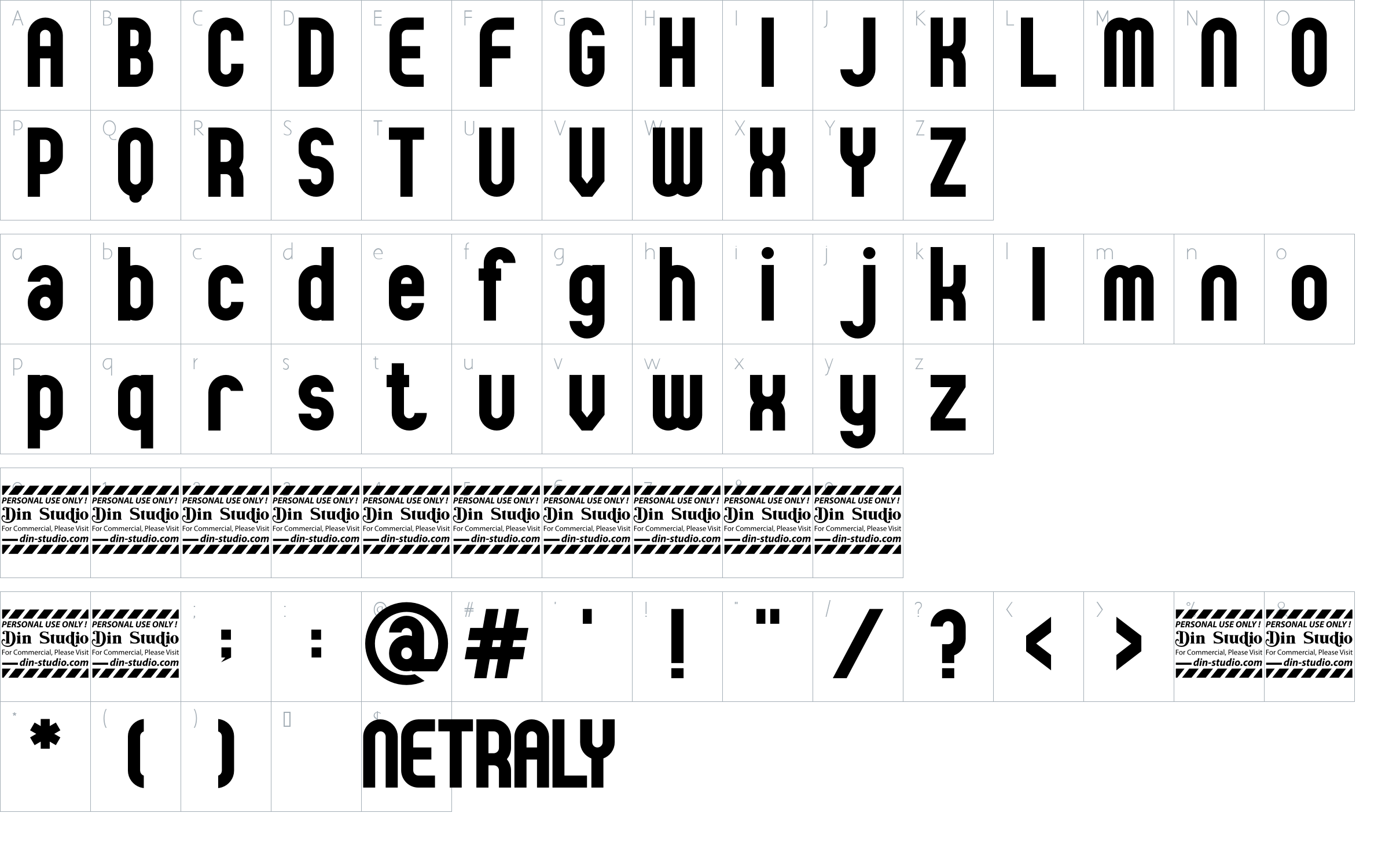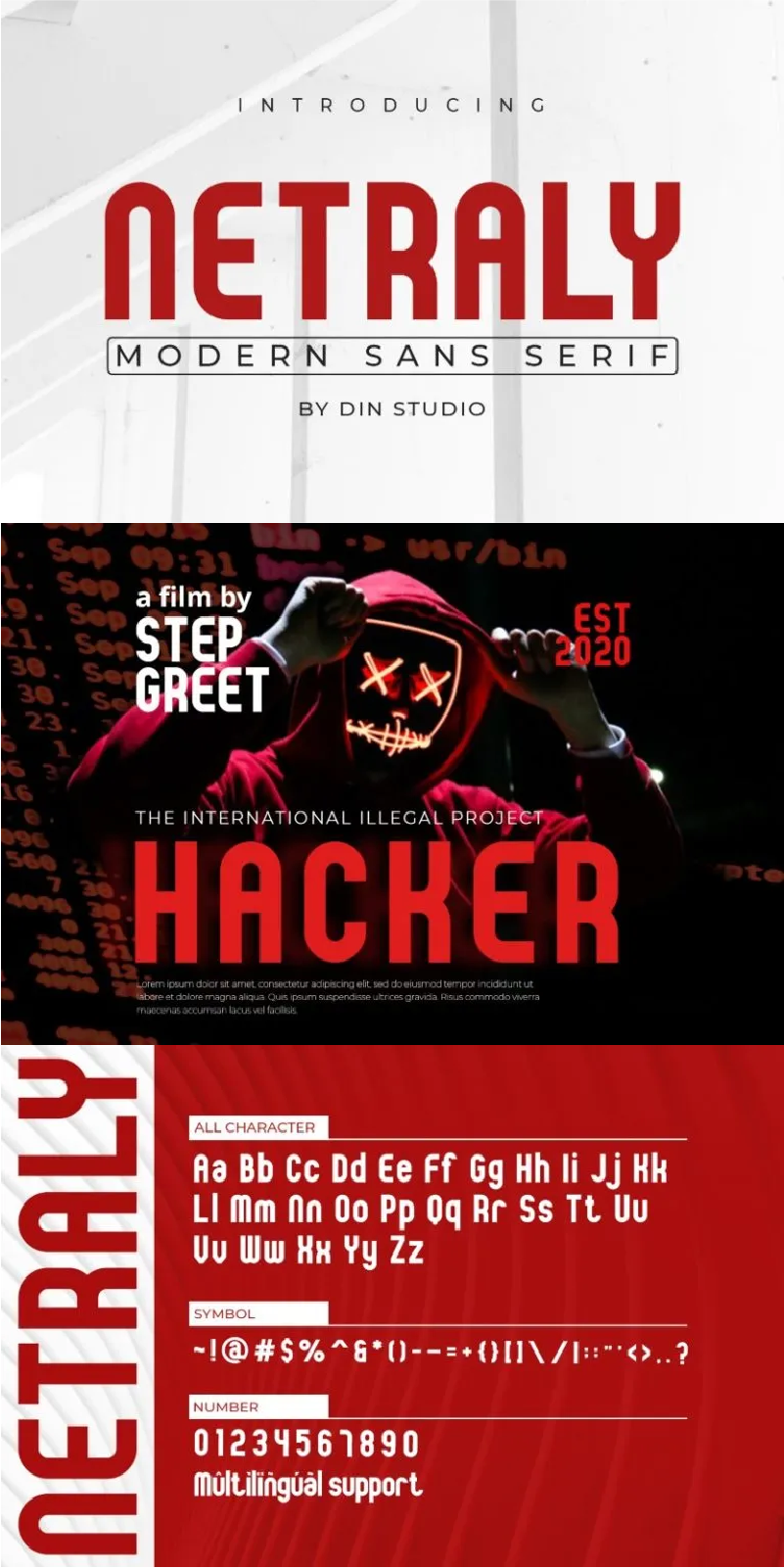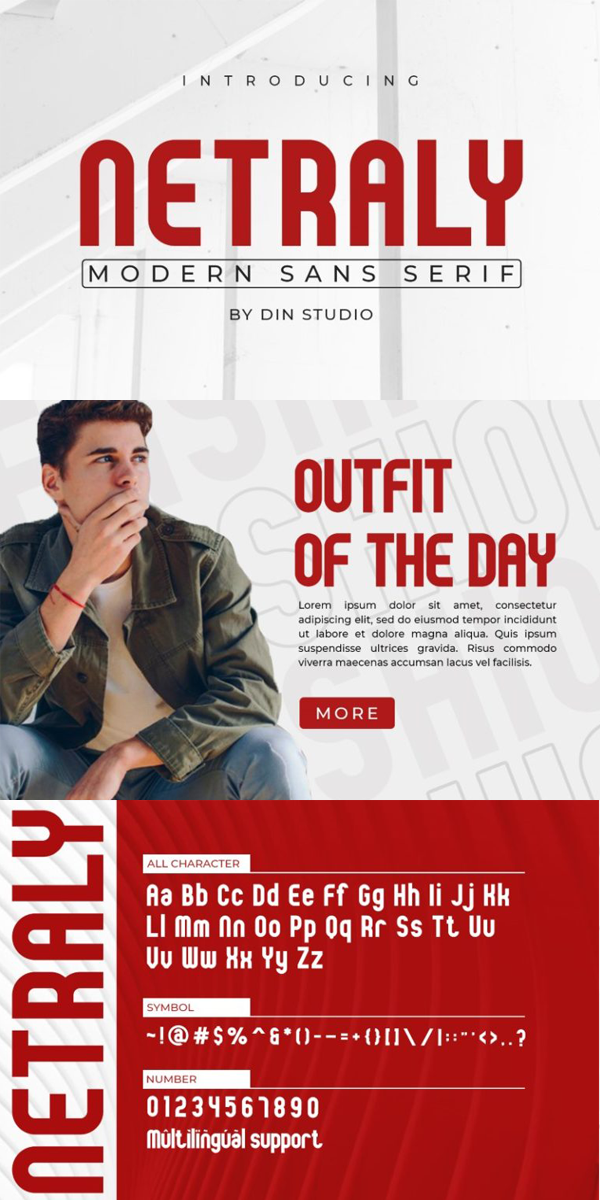
Netraly Font
About Netraly
Sans Serif Font – Netraly, a modern sans serif font made for any professional project brandings. It is best applied for printings, brandings, and quotes. Every letter has a unique and beautiful touch. See the previews above to get some inspiration on how you can use them. Happy designing!